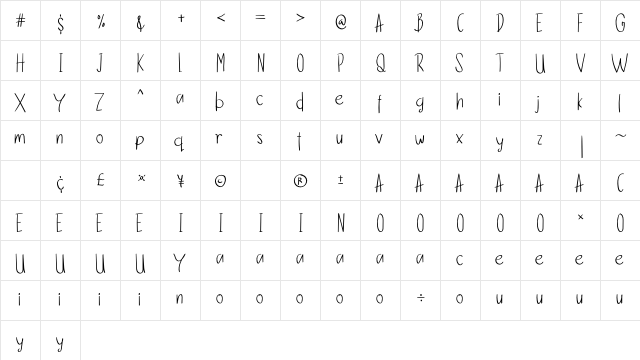
Yahatsu Pu Regular
| Foundry | rozi |
| Designer | rozi |
Design Context for Yahatsu Pu Typeface
Yahatsu Pu takes a measured approach to typography — its balanced proportions and neutral character make it a reliable workhorse for both digital and print work.